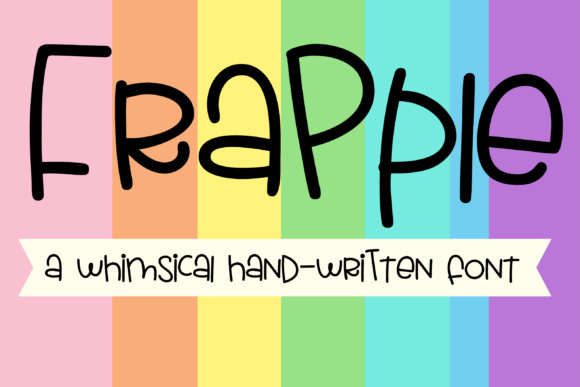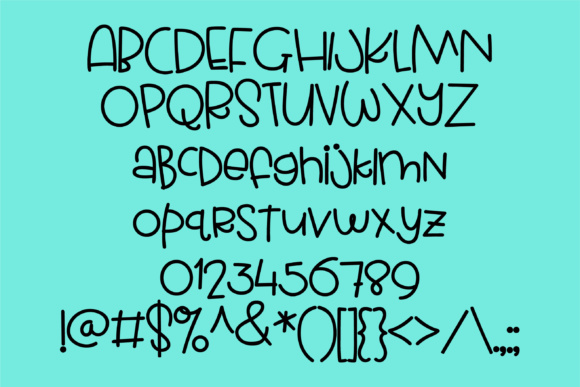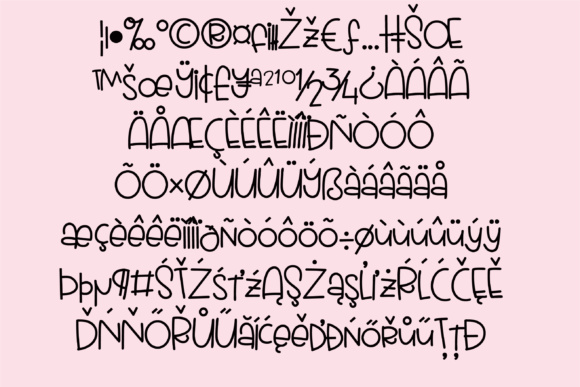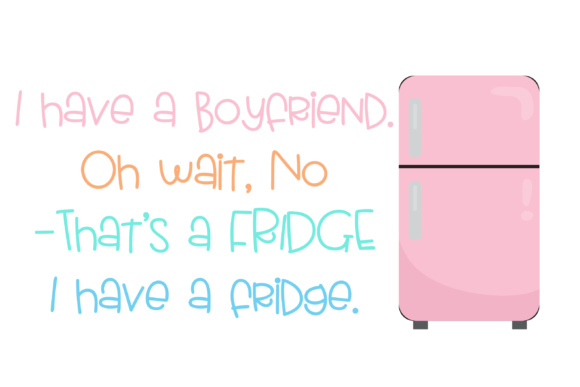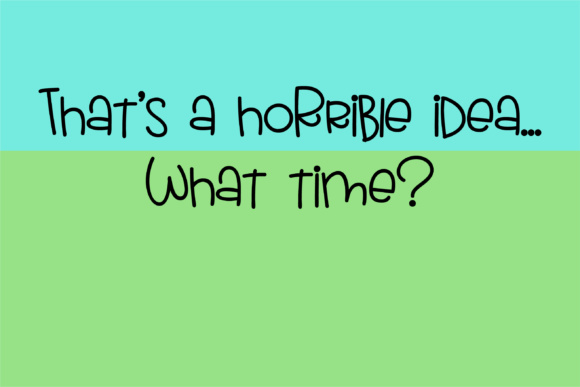
HomeScript FontsFrapple Font Script Fonts Frapple Font FacebookXPinterestWhatsApp Frapple Font Poster 2 Frapple Font Poster 3 Frapple Font Poster 4 Frapple Font Poster 5 About Frapple Font This very whimsical hand-written font has two cases you can mix up as you type for creative looks. DOWNLOAD ON CREATIVE FABRICAThis font is sold and delivered by Creative Fabrica. Font Canyon may earn a commission if you buy through this link. People also explored Skeletal Wish Falcon Harfing – Bold Script Font Deep Font Romantica Pro Hello Font Wednesday Font Let It Snow Font Lovely Purple Font Biehon Font 454 0 TagsFrapple Font Previous articleNight in Sidney FontNext articleWhisk It Font LEAVE A REPLY Cancel reply Comment: Please enter your comment! Name:* Please enter your name here Email:* You have entered an incorrect email address! Please enter your email address here Website: Save my name, email, and website in this browser for the next time I comment. Personal Use Free Jelly Fish Personal Use Free Read more about this font The Bocah Personal Use Free Read more about this font Kitsor Rauttie Personal Use Free Read more about this font Soria Personal Use Free Read more about this font BLOG Elegant Wedding Invitation Fonts – Handwritten & Script Fonts Elegant Wedding Invitation Fonts Your wedding day is one of the most important moments of your life, and every detail matters—including your invitation design. Our... Modern Sans-Serif Fonts That Brands Love in 2025 Fonts That Capture the Spirit of New York City Top 10 Handwritten Fonts That Elevate Your Designs